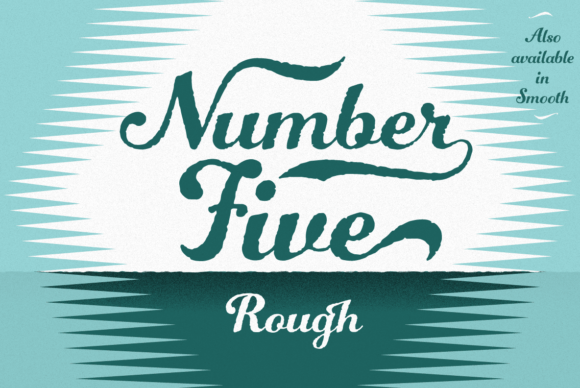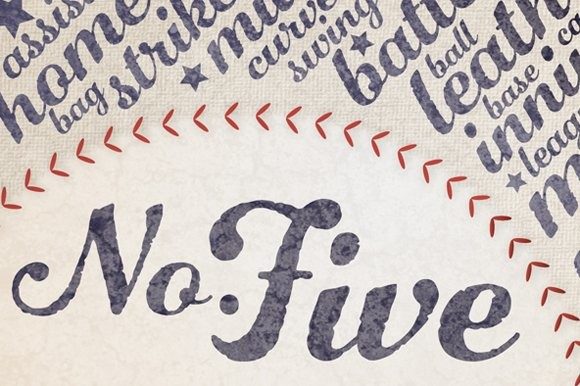
Number Five Rough Font
db-ku.com - Script & Handwritten -- Number Five is pure Americana, suitable for titling, display, logo, signage, and editorial work. Its two versions, Smooth and Rough, are constructed similarly, yet imbued with distinct feelings and uses.